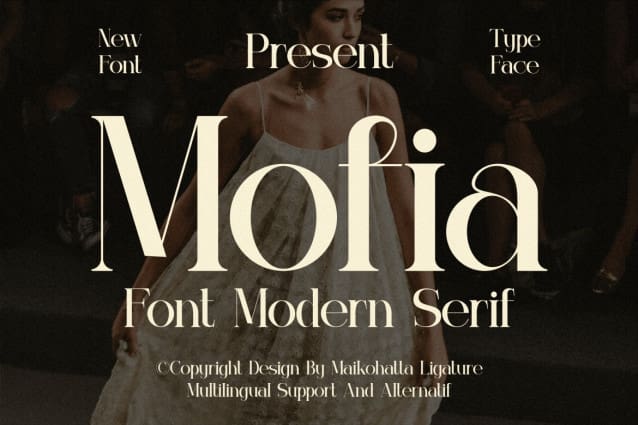
Mofia Font
Mofia Font – Modern Serif Font. This font has a balanced proportion of stroke thickness and thinness, creating attractive and easy-to-read visuals. This modern serif style is often characterized by a bold distinction between thick and thin lines, providing an understated touch while remaining remarkable